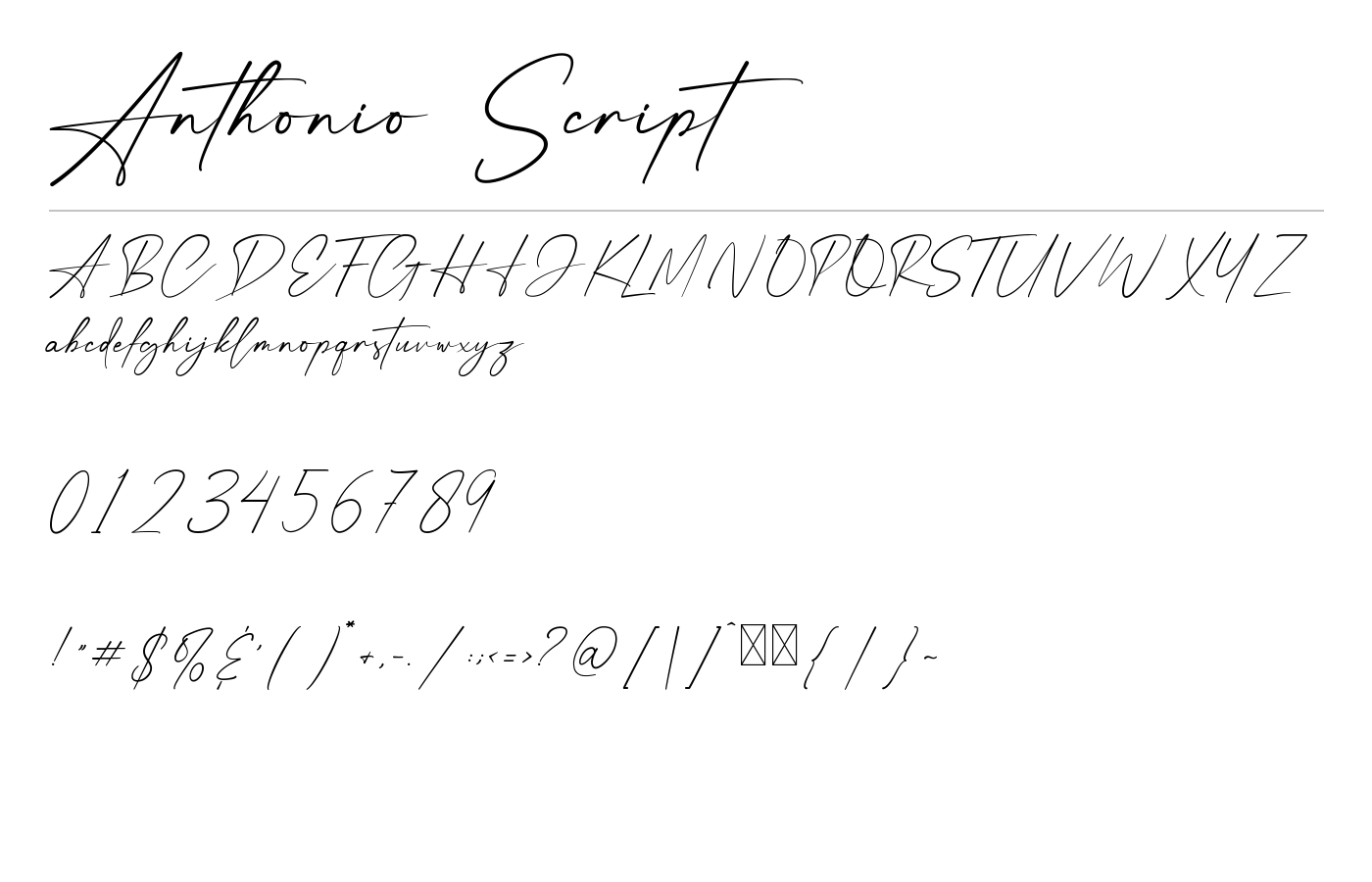
Anthonio Script is a delicate, elegant handwritten script font characterized by its thin, flowing strokes and natural, cursive letterforms. Its light weight and airy spacing give it a graceful, modern feel that works beautifully for invitations, branding, and stylish editorial designs where a personal, sophisticated touch is desired. This font shines in projects that need a refined yet approachable look, such as luxury packaging, fashion logos, and creative headlines.
Anthonio Script Font
About Anthonio Script Font
| Font family | Anthonio Script Font |